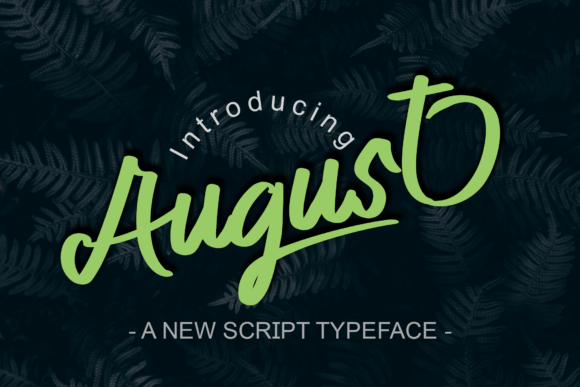
The Elegant August Font: A Designer’s Delight
I’ll never forget the time I was working on a wedding invitation project, and my client asked for a font that exuded elegance and sophistication. I scoured the internet, tried out countless fonts, but none seemed to fit the bill. That was until I stumbled upon the beautiful August font. ✨ It was love at first sight! The delicate script and effortless flow of this font made it the perfect fit for my project. In this article, I’ll share with you why I’m obsessed with the August font, its features, and how to make the most of it in your designs.
An Honest Review of August Font
What I Love About August Font
- ✨ Elegant and delicate script that adds a touch of sophistication to any design
- ✅ Perfect for creating beautiful wedding invitations, branding, and packaging designs
- ✨ Highly versatile and can be used for both digital and print projects
While the August font is a stunning addition to any design, there are a few things to keep in mind: 🤔
- ⚠️ Some users may find the font a bit too delicate for certain design projects
- ⚠️ May require some experimentation to get the perfect combination of glyphs and swashes
A Practical Guide to Using August Font
The Story Behind August Font
The August font was designed with elegance and sophistication in mind. The designer wanted to create a font that would evoke a sense of luxury and refinement, perfect for high-end branding and packaging designs. The result is a beautiful, delicate script font that’s sure to impress. 💫
Q: What is the August font best used for?
A: The August font is perfect for creating beautiful wedding invitations, branding, and packaging designs. It’s also great for digital and print projects that require a touch of elegance and sophistication.